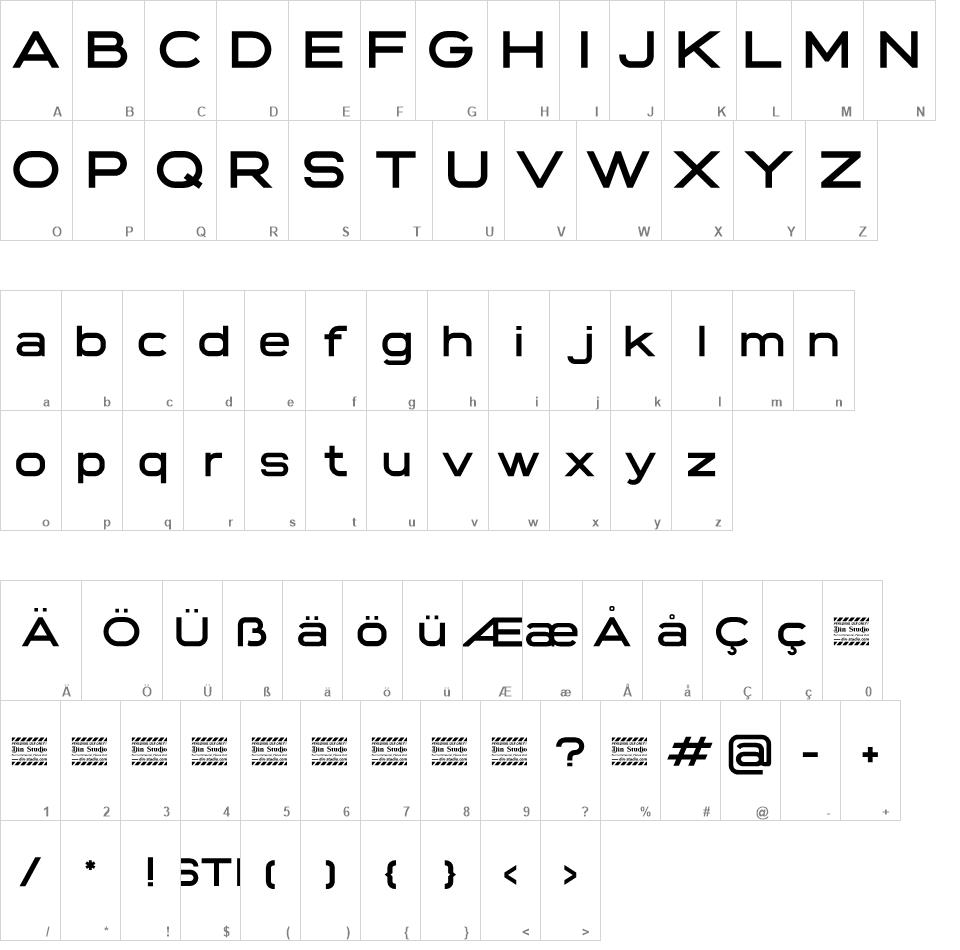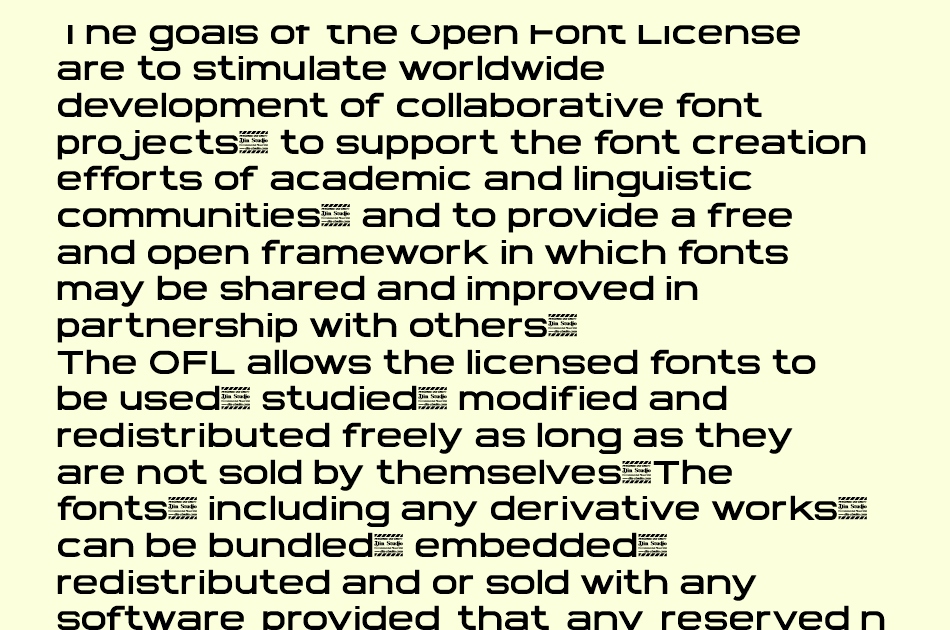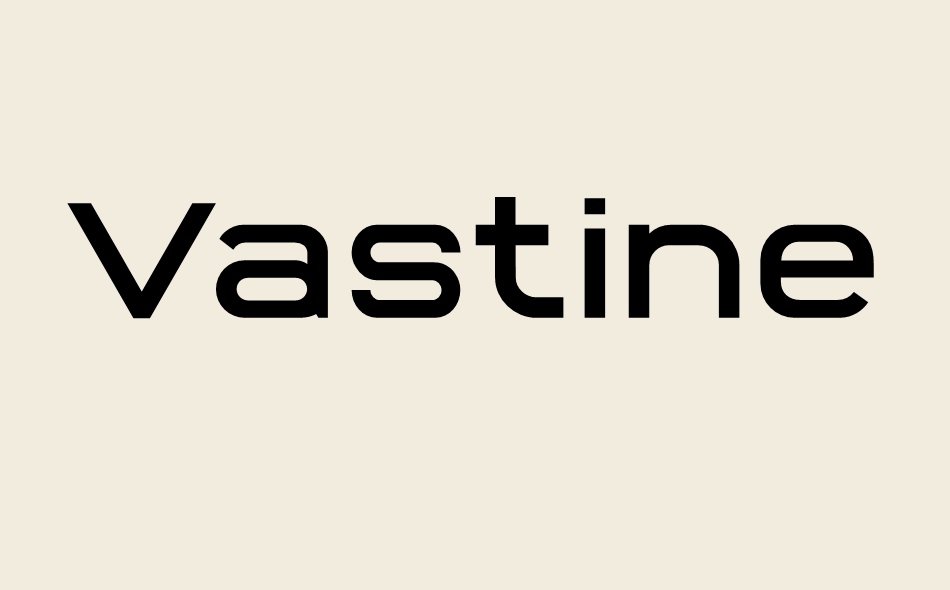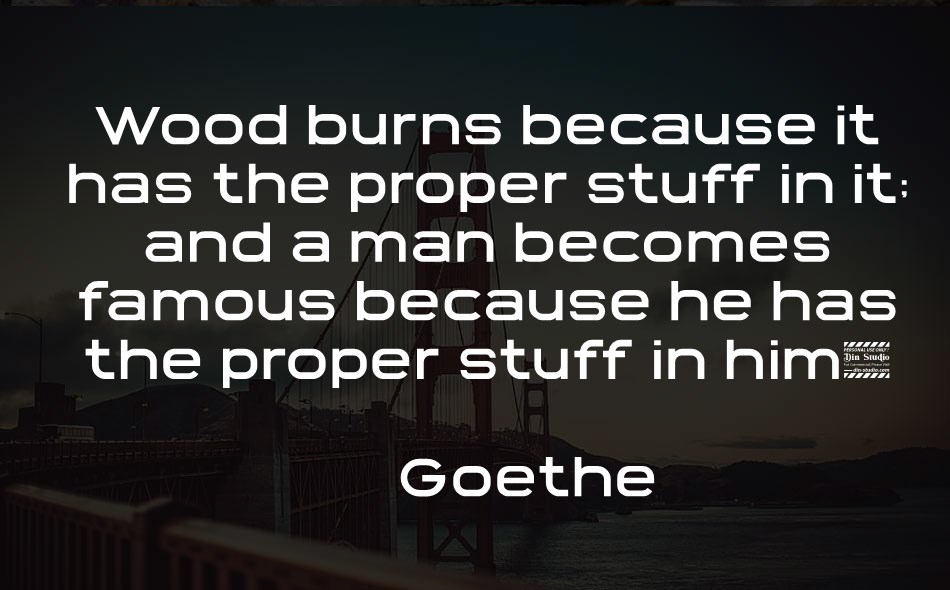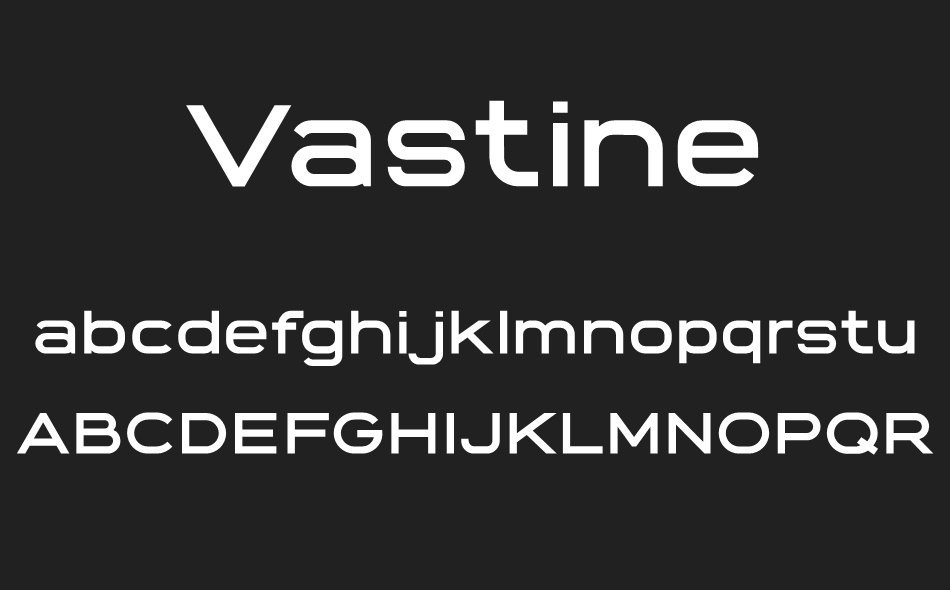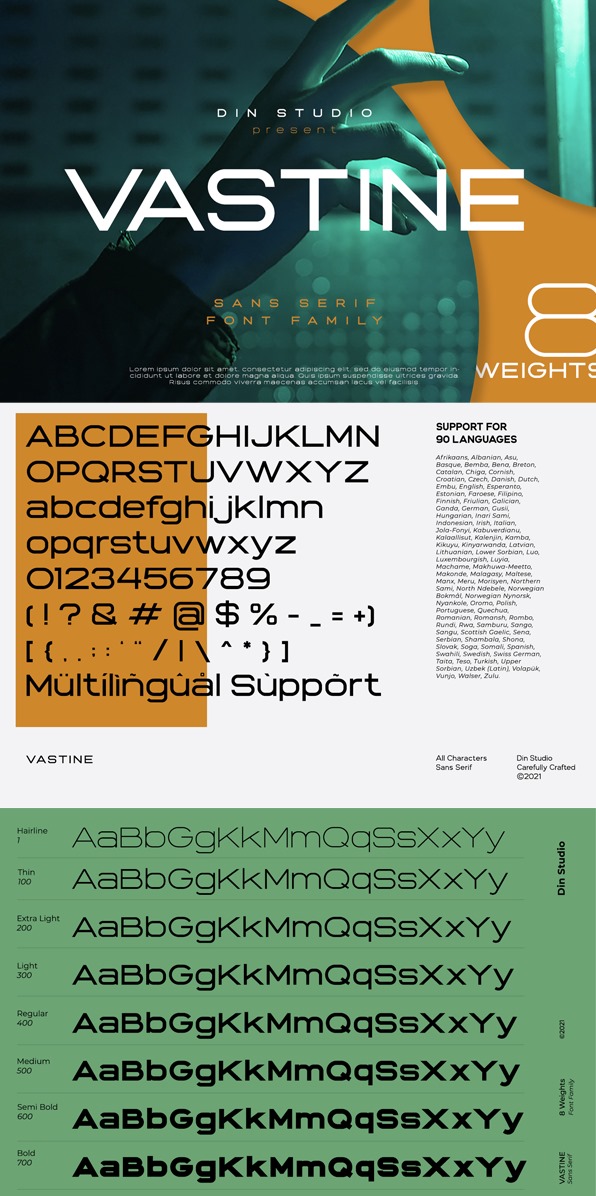
Vastine font
Vastine A Sans Serif Font Family
If we can give you many options, then, why not? Vastine is a package that will surprise you. You will get many options to maximize your designs with this stylish fonts. It is made in uppercase and lowercase that easy on the eyes and nice to look while its also easy to read.